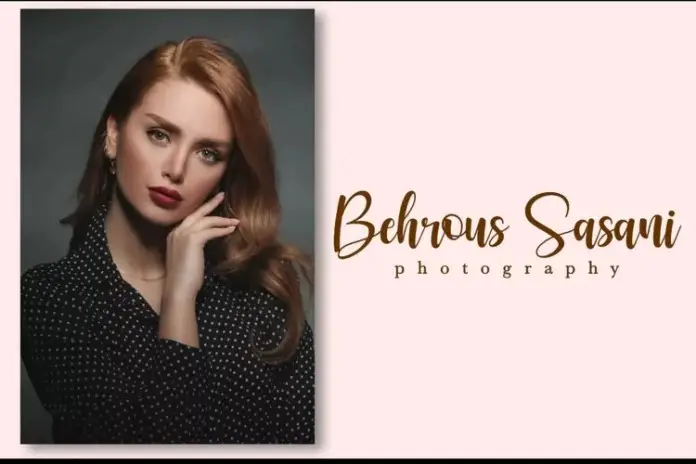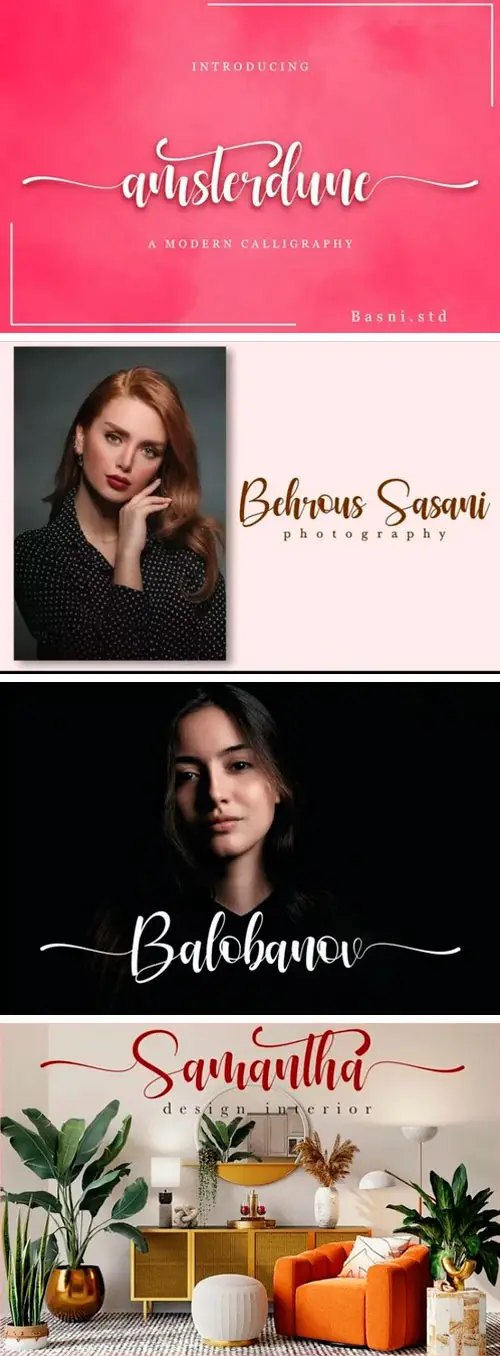
Amsterdune Calligraphy Font
The Amsterdune Calligraphy Font is a beautifully crafted typeface that embodies elegance and sophistication. Perfect for a variety of creative projects, this font features a flowing script style that adds a personal touch to your designs.
• Stylish calligraphy with a modern twist
• Easy to read and aesthetically pleasing
• Ideal for branding, logos, invitations, and greeting cards
• Use in UI design for a stylish touch
• Combine with sans-serif fonts for contrast